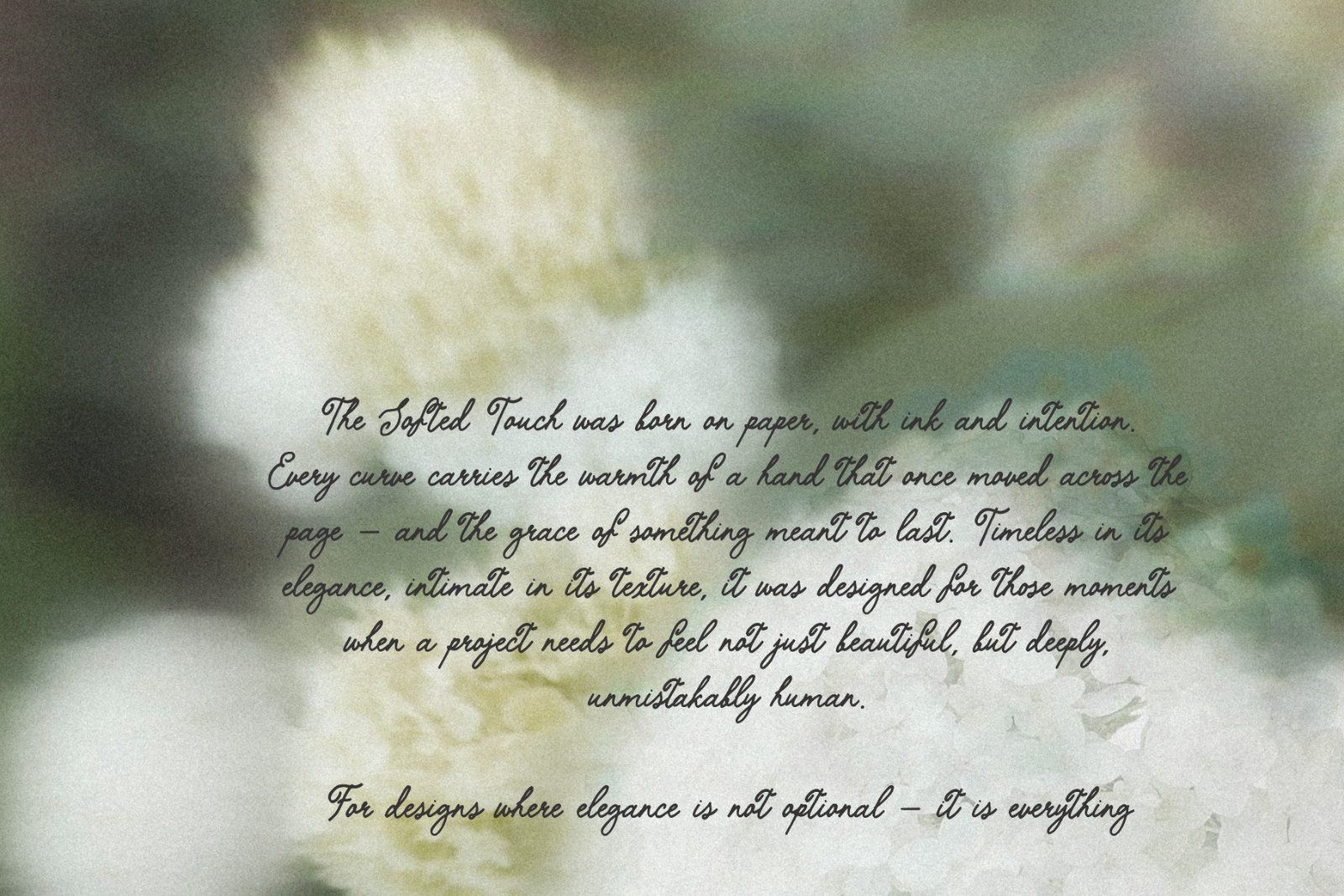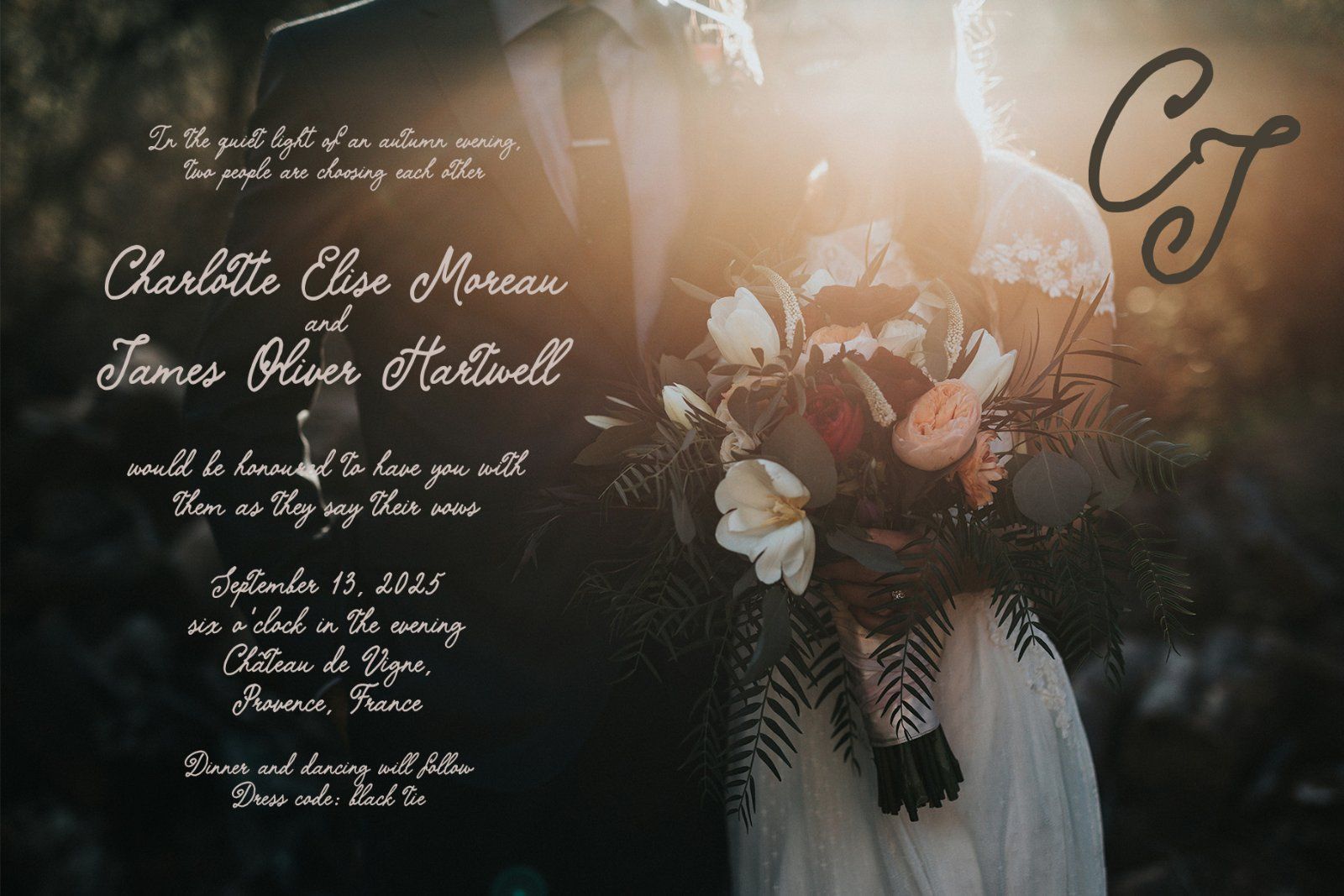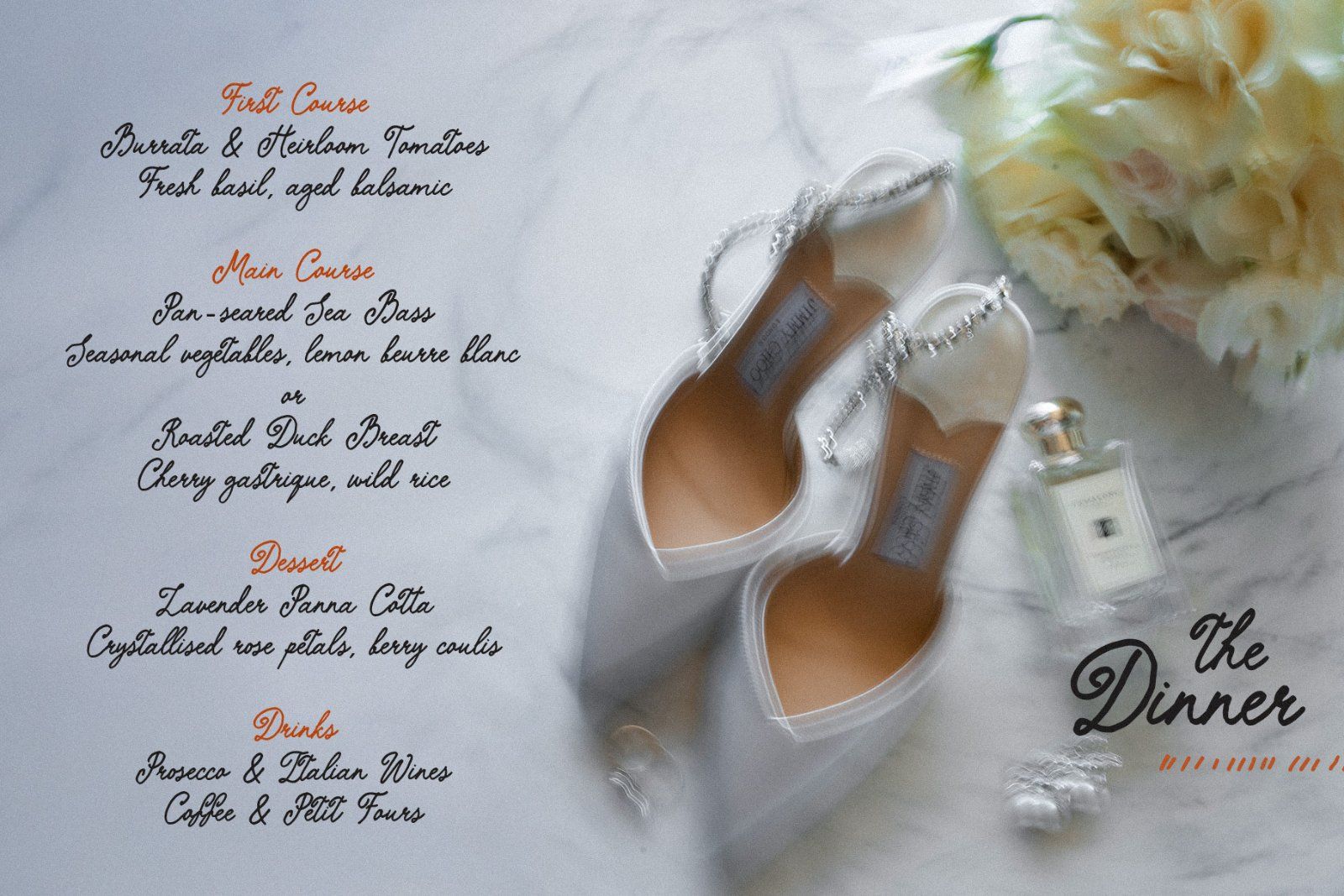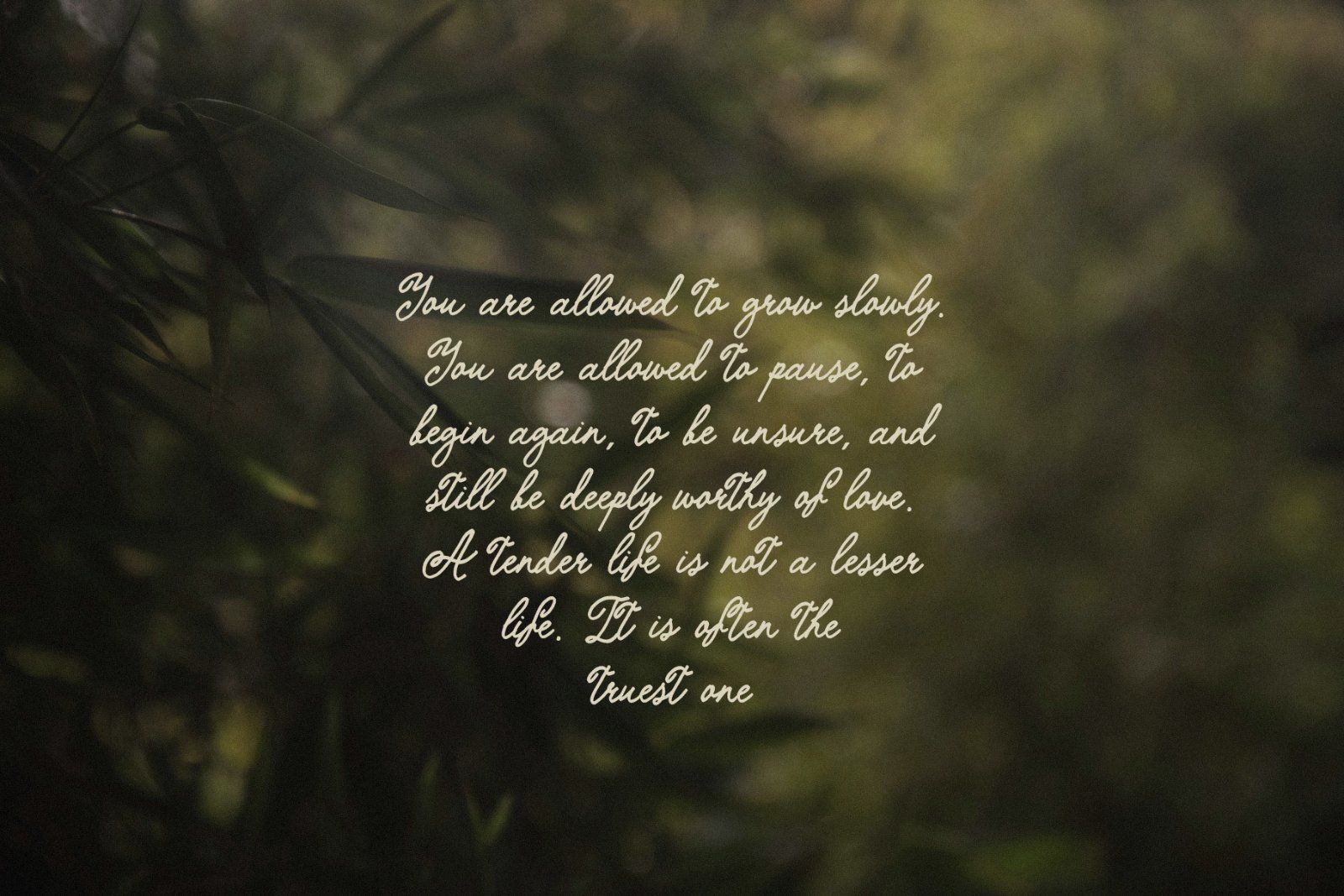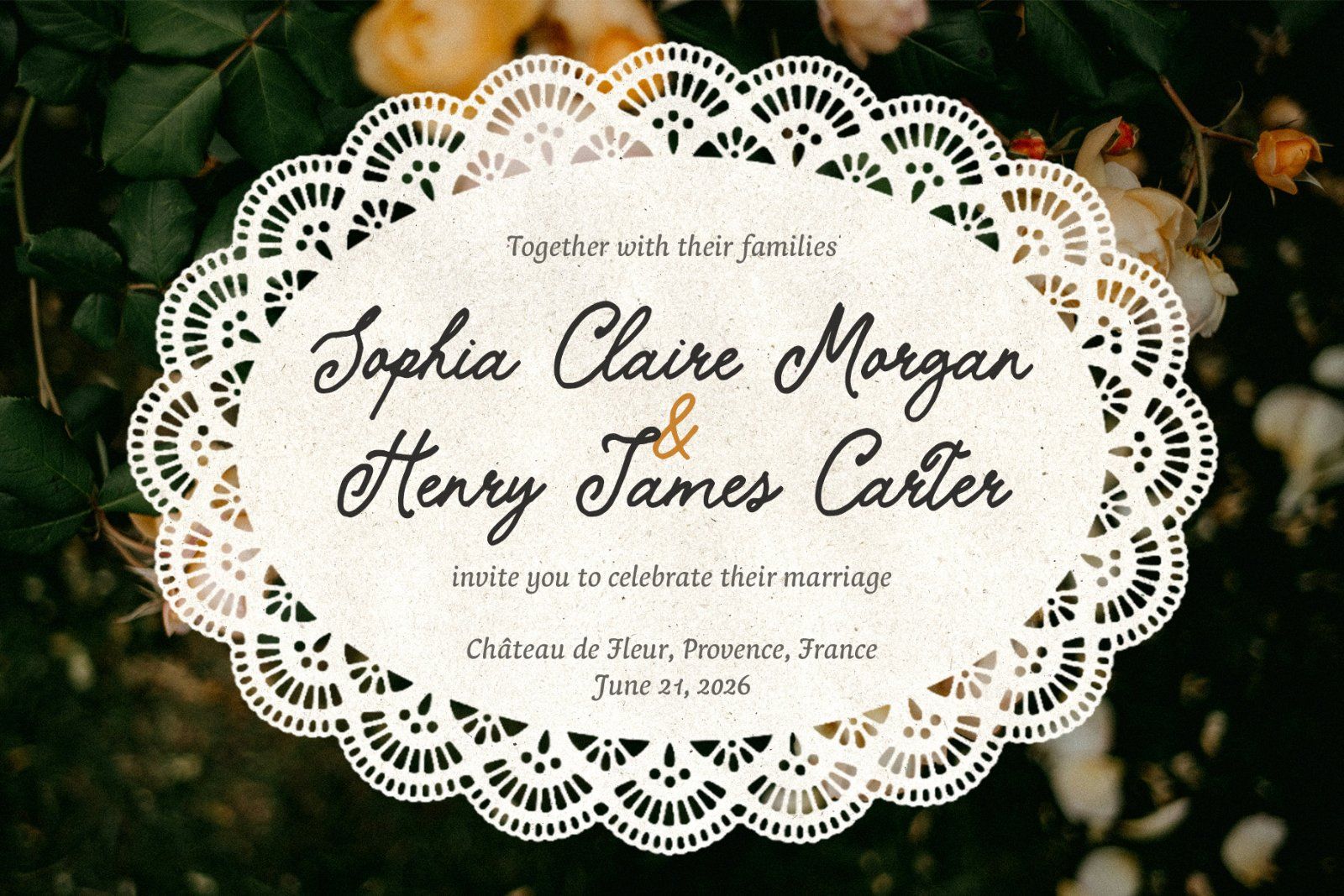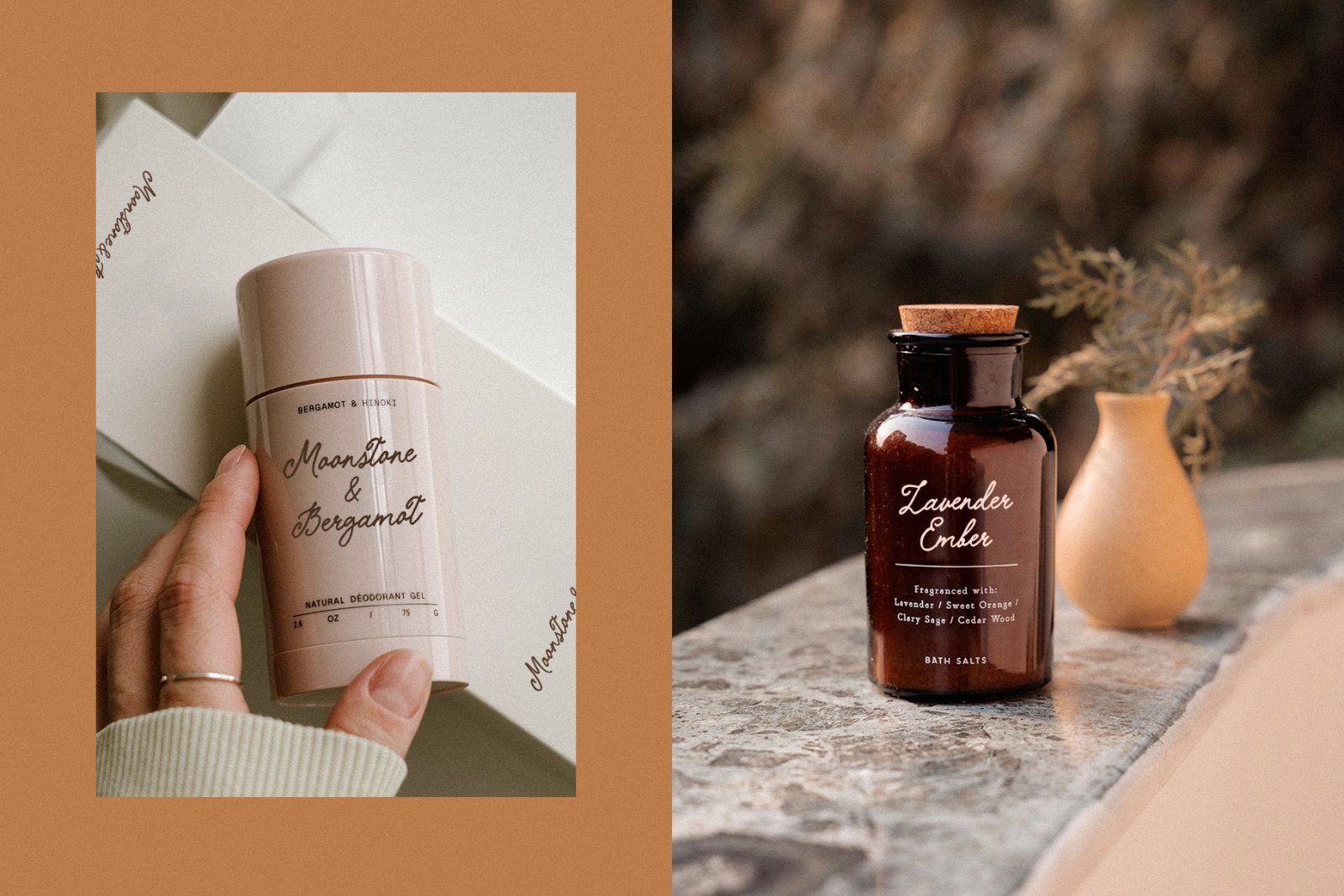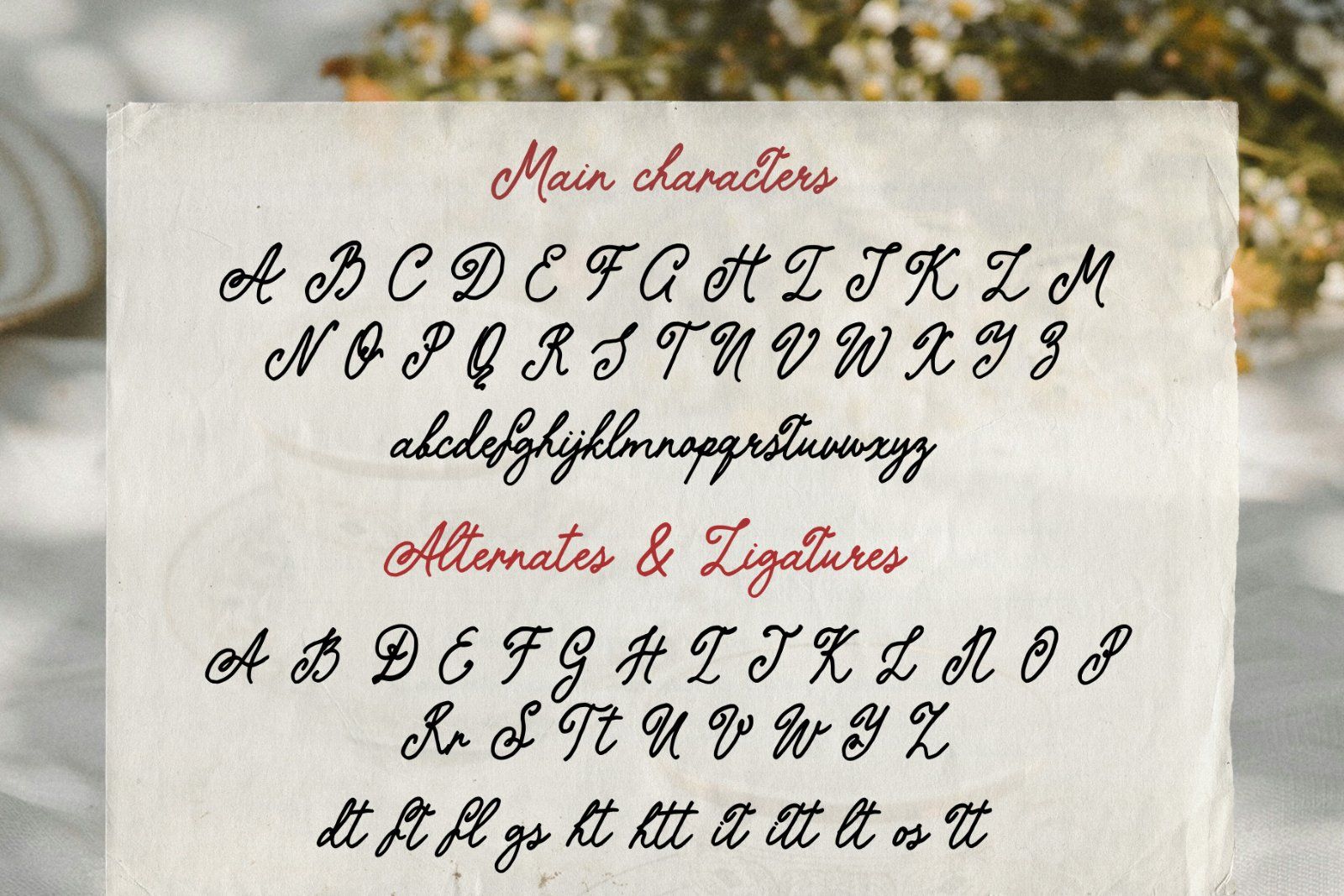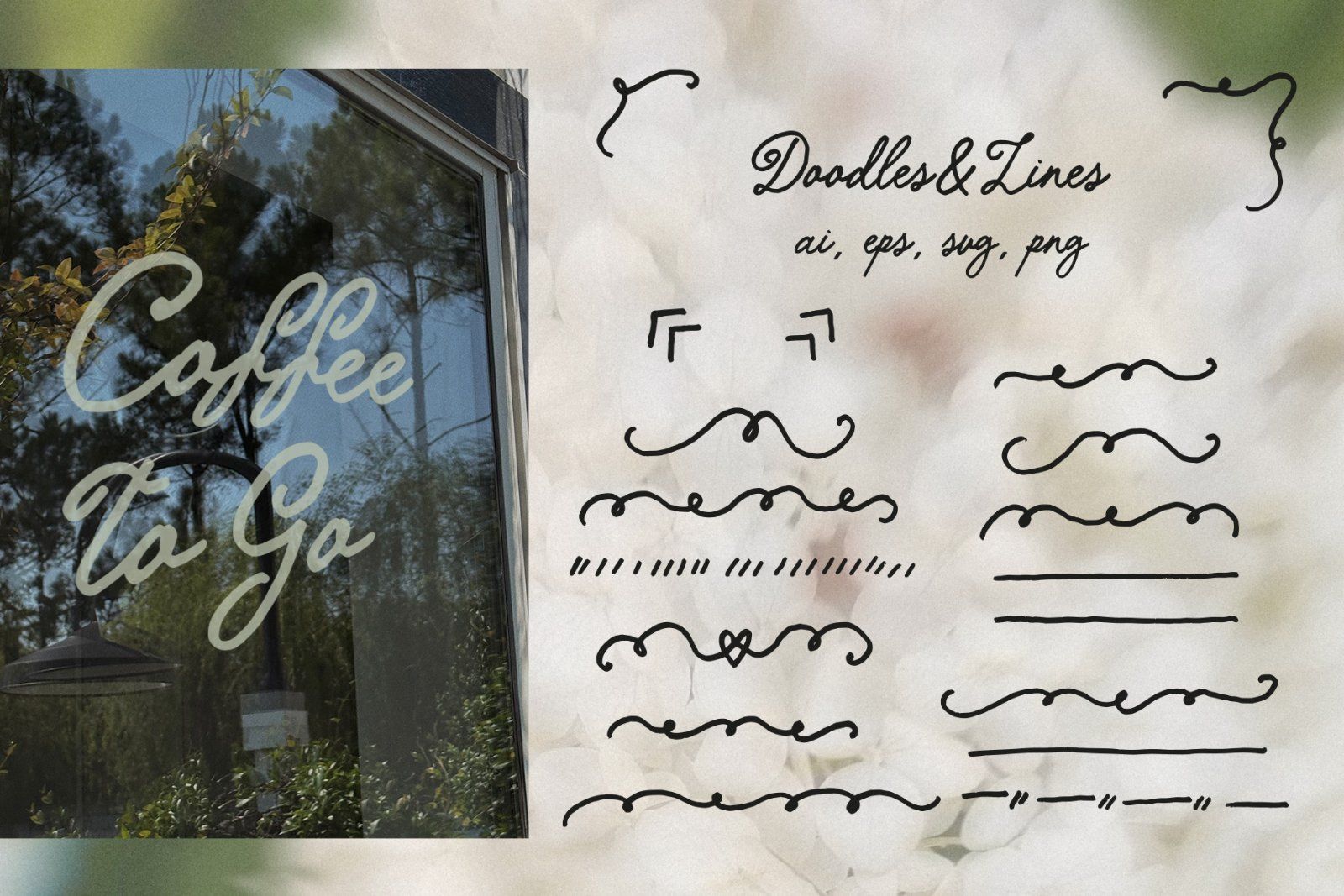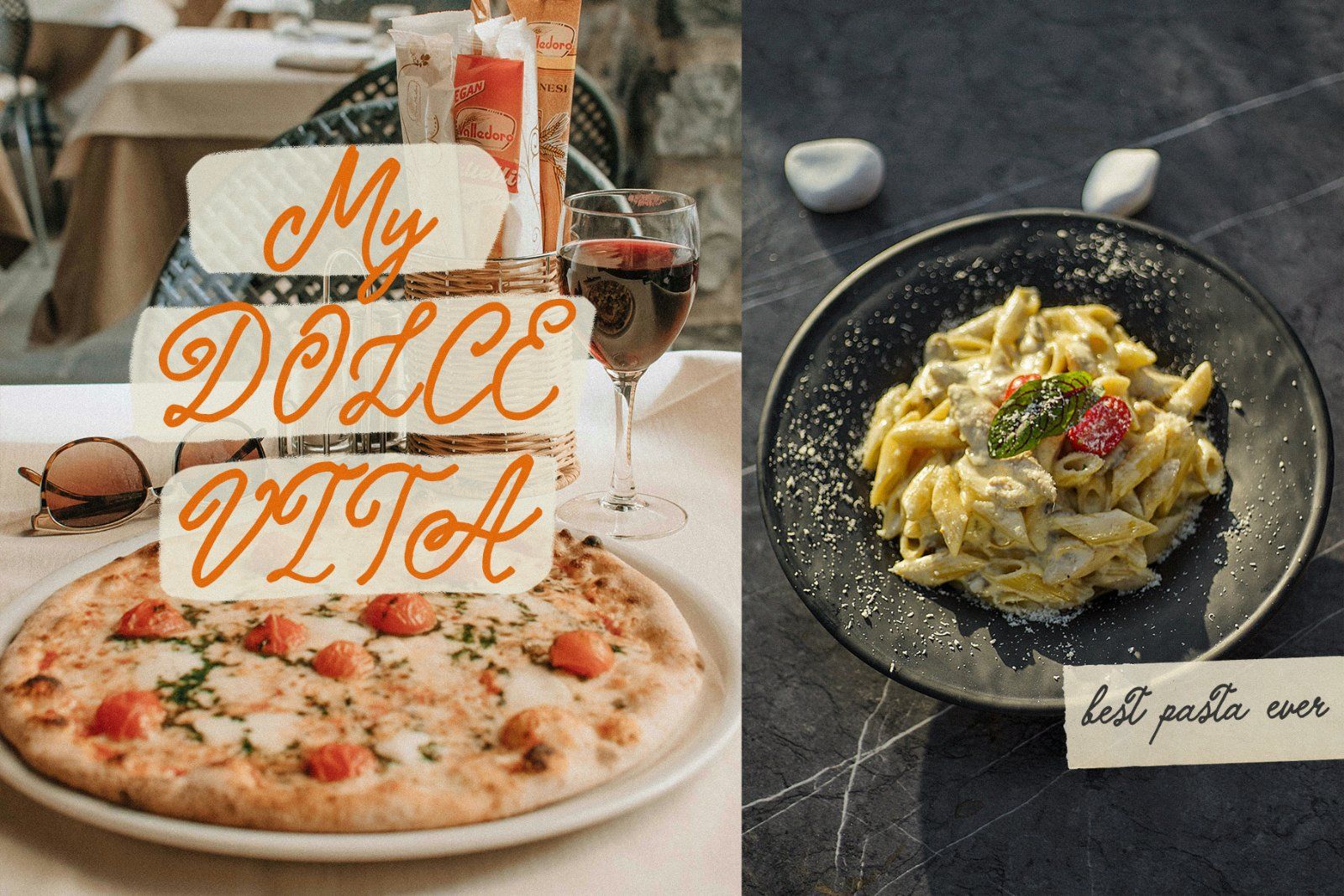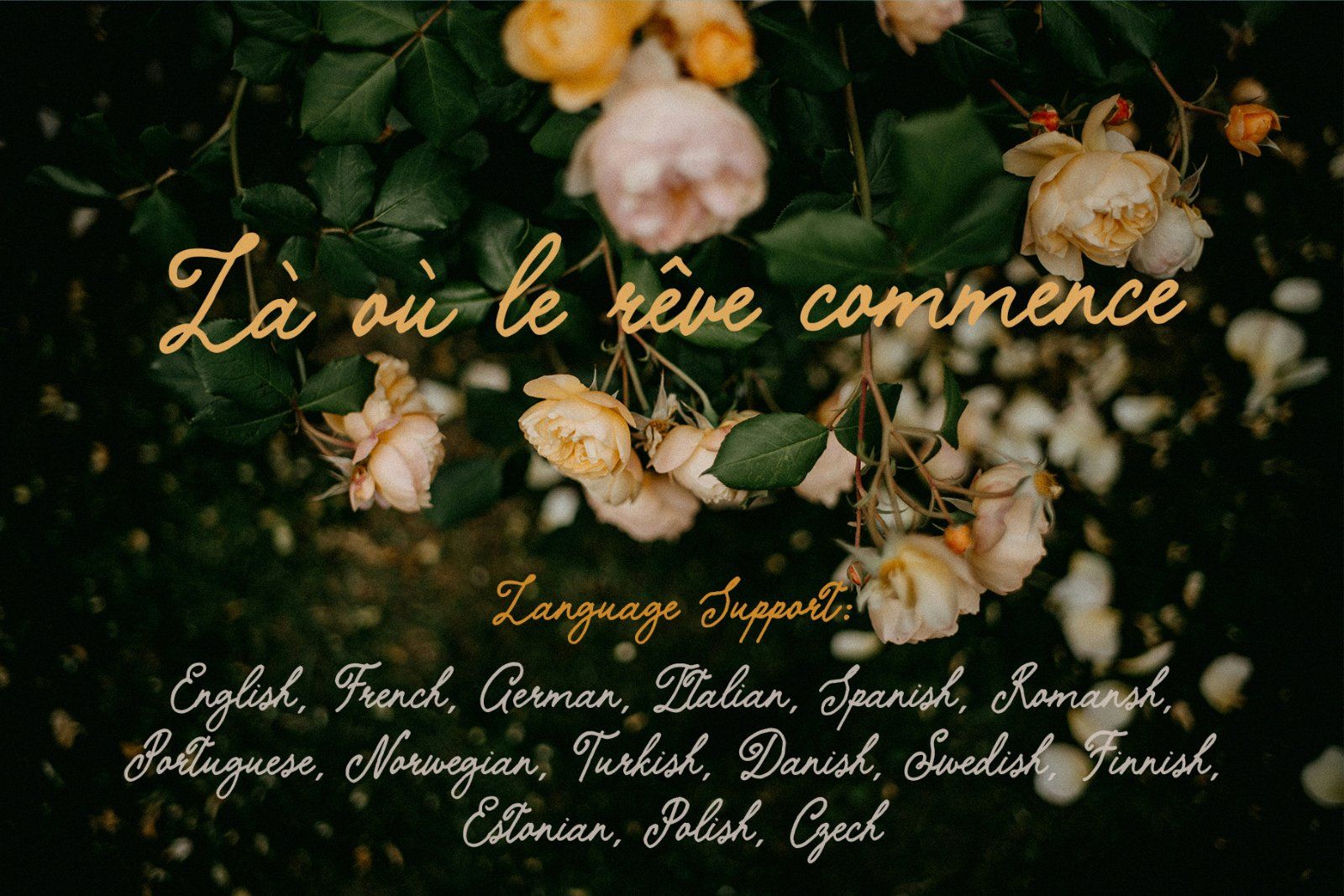
The Softed Touch is a vintage retro handwritten script font with a natural ink texture and elegant swirls. Written with a pointed pen on paper, then carefully vectorized, it brings timeless luxury to every design — from wedding invitations to fashion branding.
The Softed Touch is an elegant calligraphy script font designed for those who believe that the right typeface can transform a project entirely. It is not clean or geometric — it is expressive, human, and deliberately beautiful.
Drawn by hand and preserved in every imperfect detail, this font carries the authentic texture of real ink. The stroke contrast is dramatic: bold downstrokes and hairline upstrokes follow the logic of a pointed nib, giving each letterform the visual weight of genuine calligraphy. Tall, looping ascenders and deep descenders create a graceful vertical rhythm, while tapered terminals taper to a natural ink point — no ball endings, no serifs, just the honest mark of a pen on paper. Swirling, expressive capitals lead each word with quiet confidence, and the consistent rightward slant keeps every line dynamic yet unhurried.
The result is a fully connected cursive script that feels intimate at any size — and truly comes alive at display scale, on hero headlines, luxury packaging, large-format print, and wedding stationery.
- Wedding invitations, Save the Date cards & wedding stationery
- Bridal brands, fashion editorial & lifestyle magazines
- Luxury packaging & product labels
- Monograms, logos & personal branding
- Social media graphics, quotes & Pinterest content
- Personalised gifts & greeting cards
Font features:
- High-contrast pointed pen calligraphy — dramatic thin upstrokes and bold downstrokes
- Fully connected cursive script with a consistent rightward slant (\\\\~15–20°)
- Tall, looping ascenders and deep descenders for a graceful vertical silhouette
- Tapered ink terminals — naturally pointed, no serifs or ball endings
- Decorative swirl capitals with flowing lead-in strokes
- Natural ink texture preserved — slightly imperfect, deeply human, unmistakably refined
- Best at display sizes: hero headlines, packaging, large-format print, from 18pt upward
- Multilingual support: English, French, German, Italian, Spanish, Portuguese, Danish, Norwegian, Swedish, Finnish, Estonian, Romansh, Turkish, Polish, Czech
The aesthetic: A perfect balance of vintage charm and modern elegance. If you are designing a wedding suite, a luxury brand identity, or a romantic editorial — and you need typography that feels warm, intimate, and refined, with the visual weight of real ink and the grace of a pointed pen — The Softed Touch is built for that project. It is the detail that makes a design feel personal.